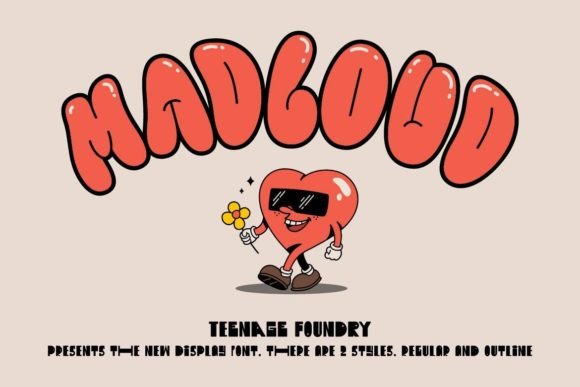
Introducing "Madcloud Font": The Unchained Graffiti Masterpiece for Unleashing Creative Expression
Are you ready to unleash your unbridled creativity and leave an indelible mark on the visual landscape? Look no further than "Madcloud Font," the ultimate display font that captures the essence of raw, urban energy. This bold and playful graffiti masterpiece is a game-changer for designers, artists, and anyone seeking a unique and captivating typographic experience.
Step into the realm of street art and let your imagination run wild with "Madcloud Font." Inspired by the vibrancy and expressive energy of graffiti, this font is tailor-made for projects demanding attention and individuality. Its thick, rounded letters, reminiscent of spray-painted masterpieces, command attention and exude a sense of carefree rebellion.
"Madcloud Font" stands out from the crowd with its striking hand-drawn style, giving it an authentic and personal touch. The organic, imperfect lines and subtle variations in letterforms mimic the spontaneity and raw energy of street art, evoking a sense of genuine artistry. This font is not just a collection of characters; it's a gateway to a world of unlimited creative possibilities.
Whether you're designing eye-catching posters, creating dynamic social media graphics, or crafting unique logos that demand attention, "Madcloud Font" is your ultimate weapon. Its versatility extends to branding projects, apparel designs, and even website headers, adding an instant touch of edginess and urban flair.
Don't settle for ordinary fonts that blend into the background. Choose "Madcloud Font" and let your designs break free from the mundane. Embrace the spirit of urban rebellion and make a statement with every word you type. Dive into the world of graffiti art and leave your mark on the digital canvas.